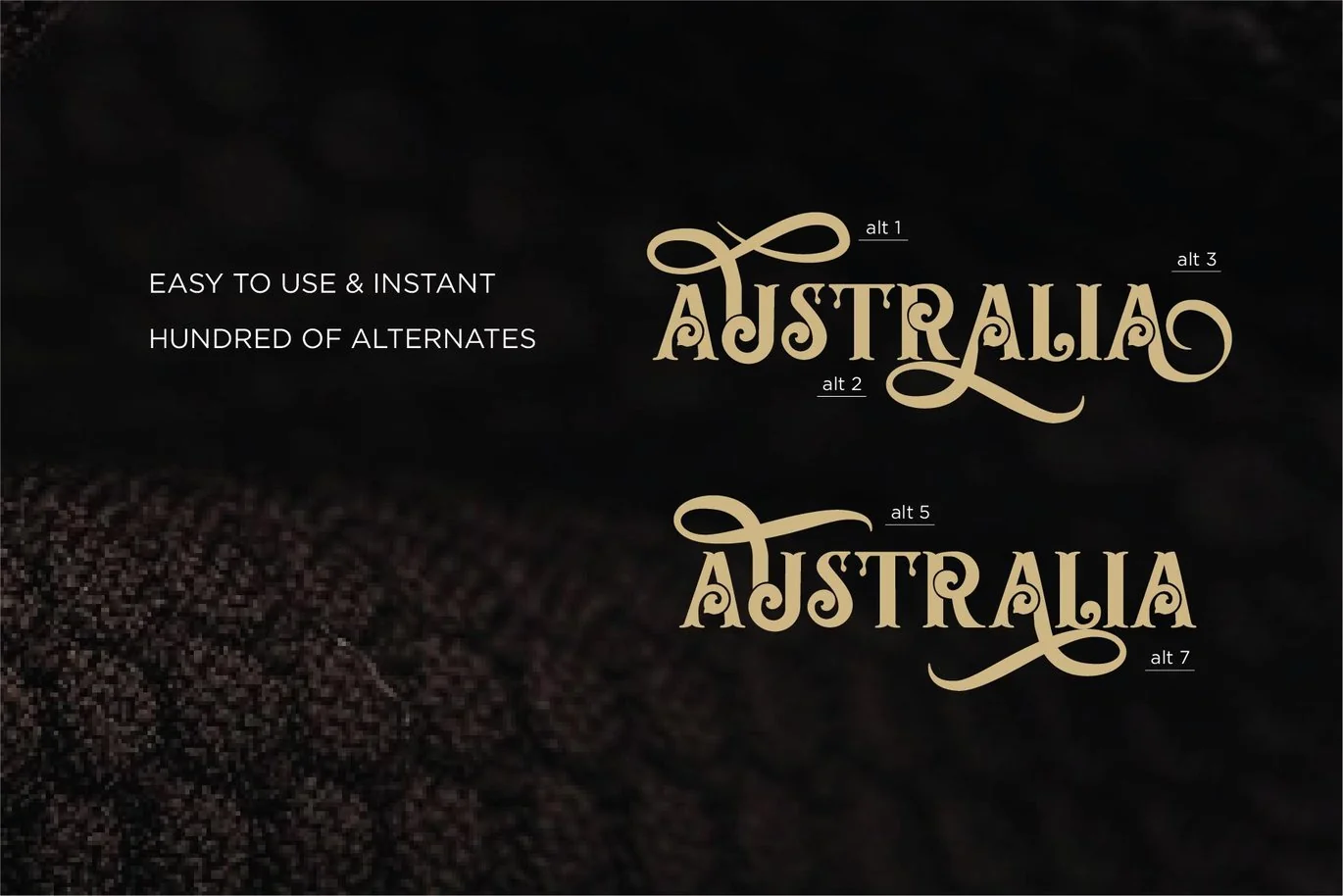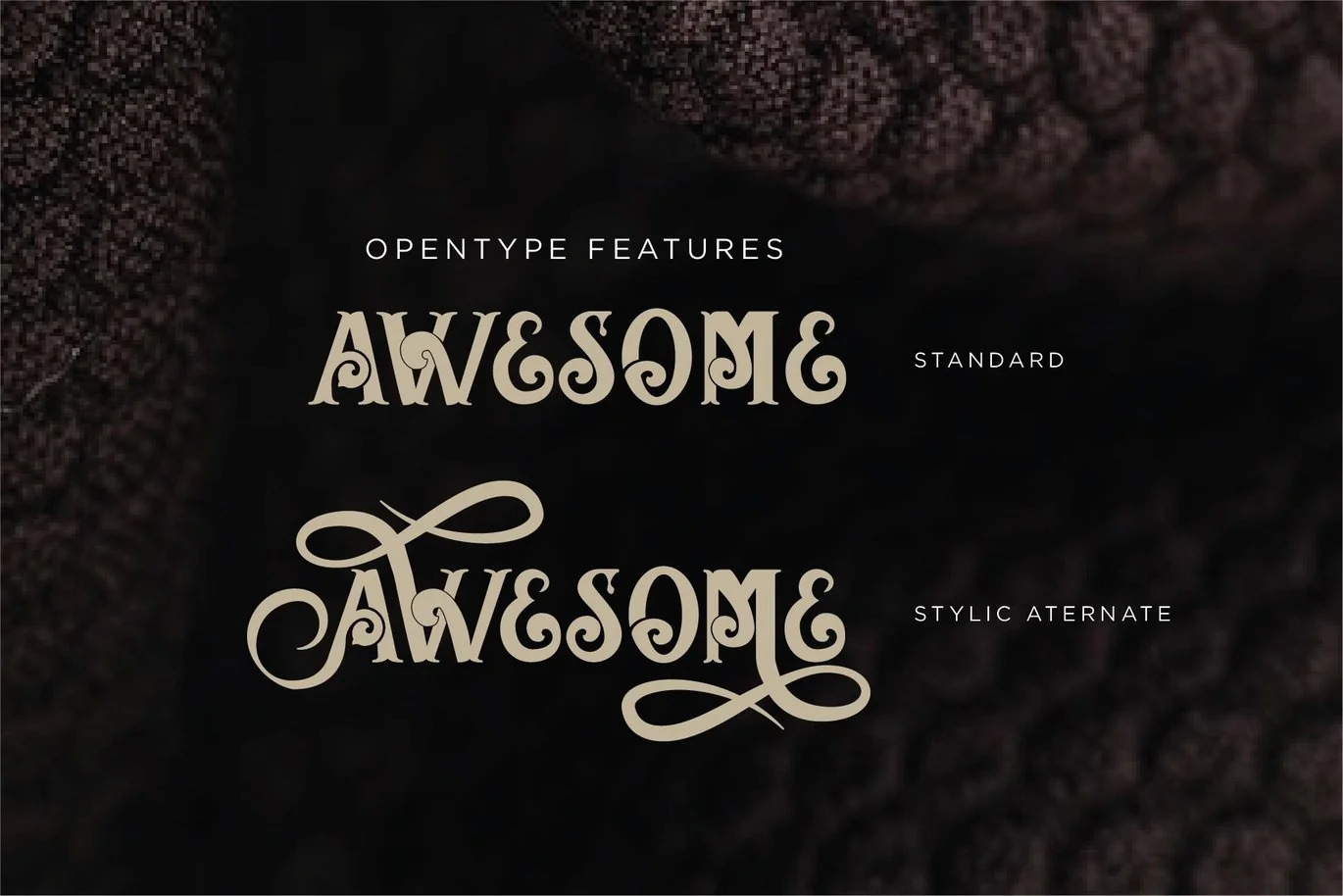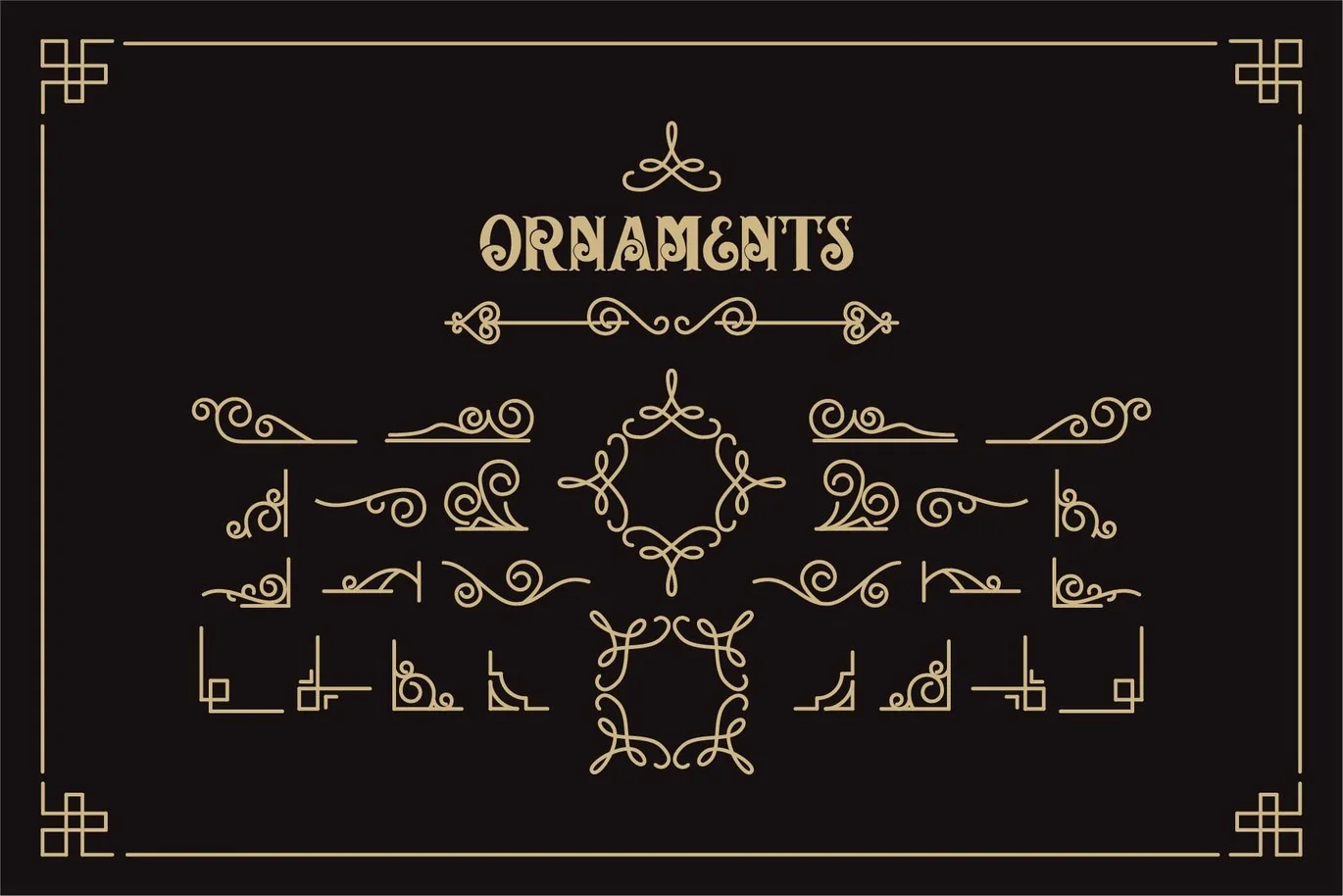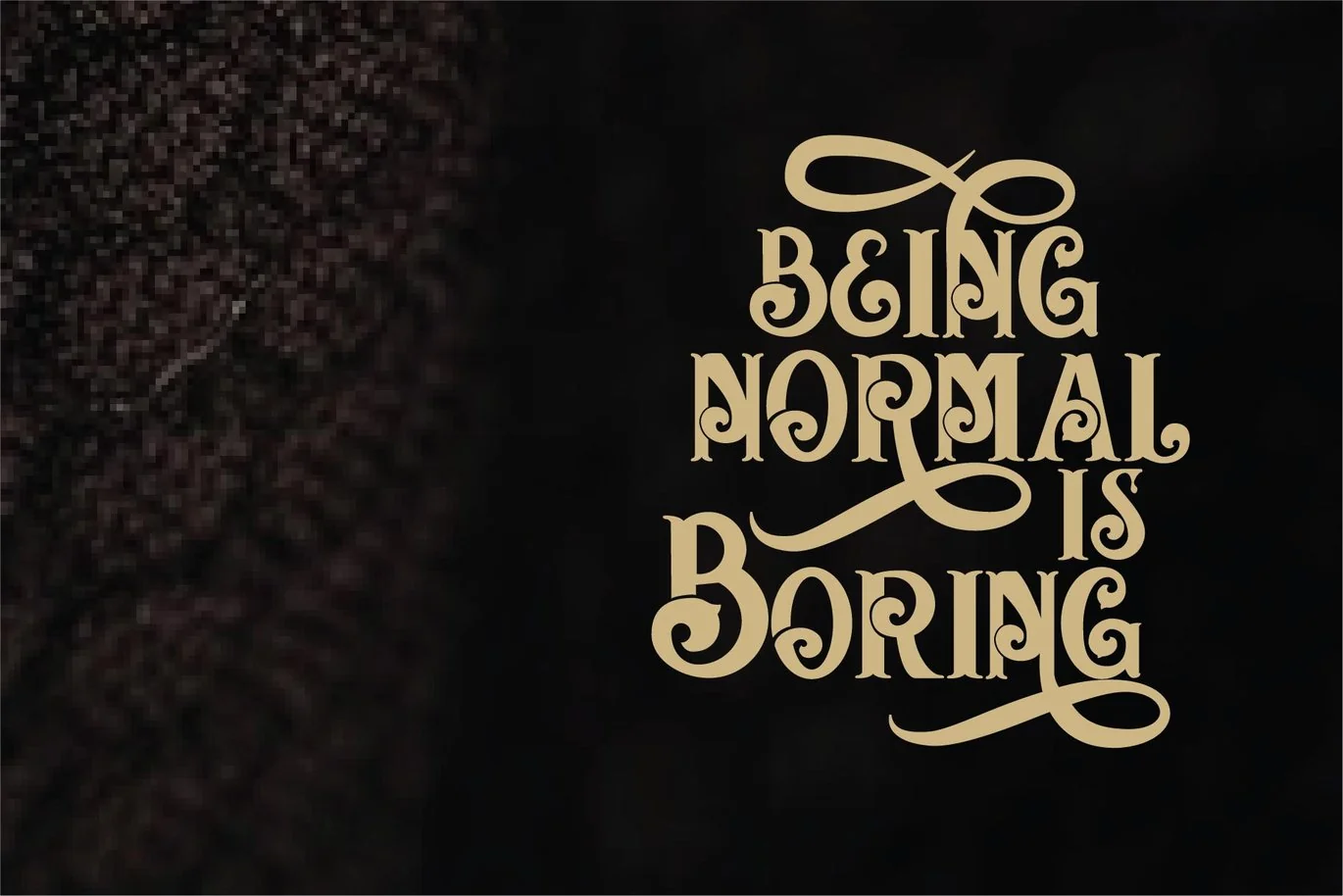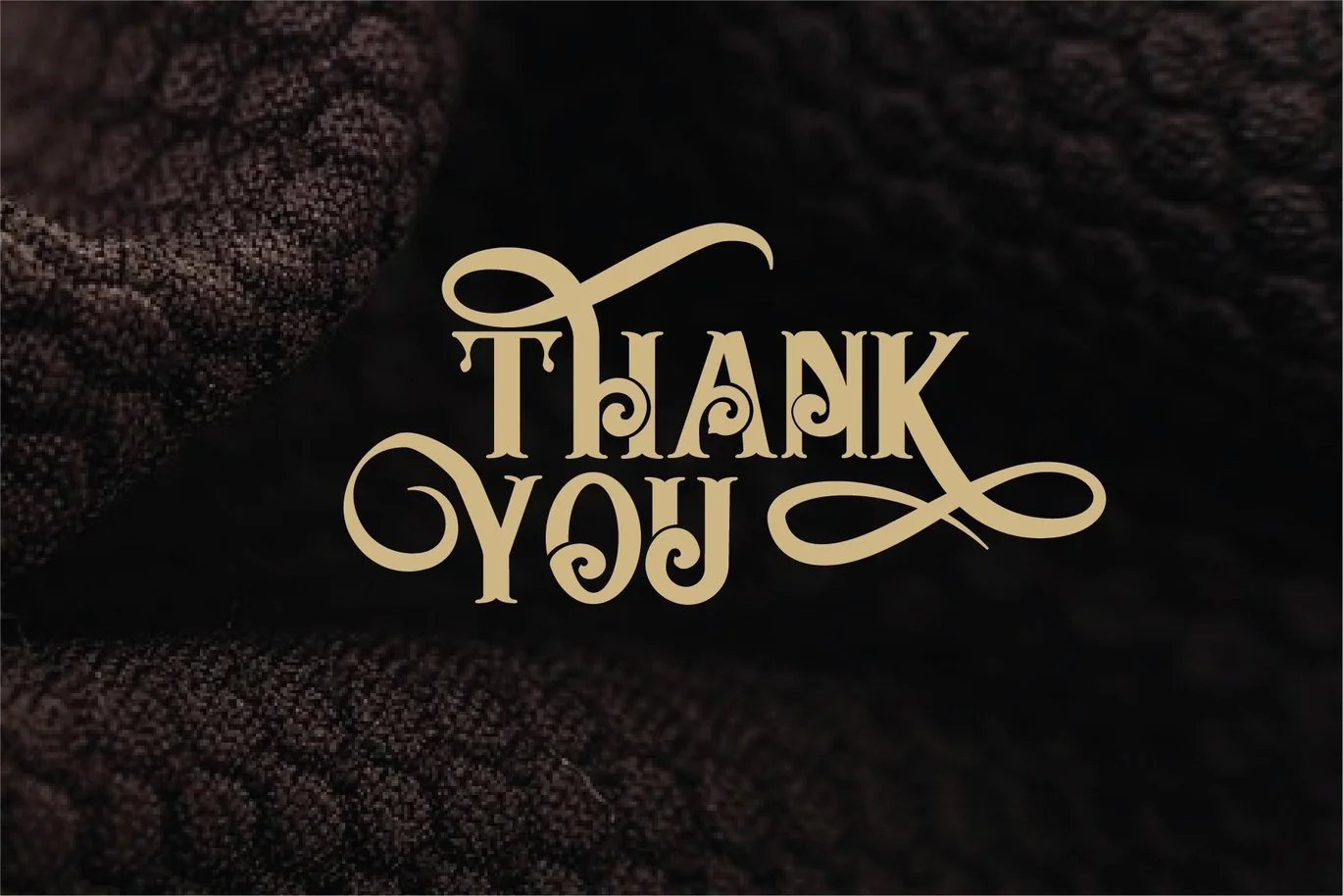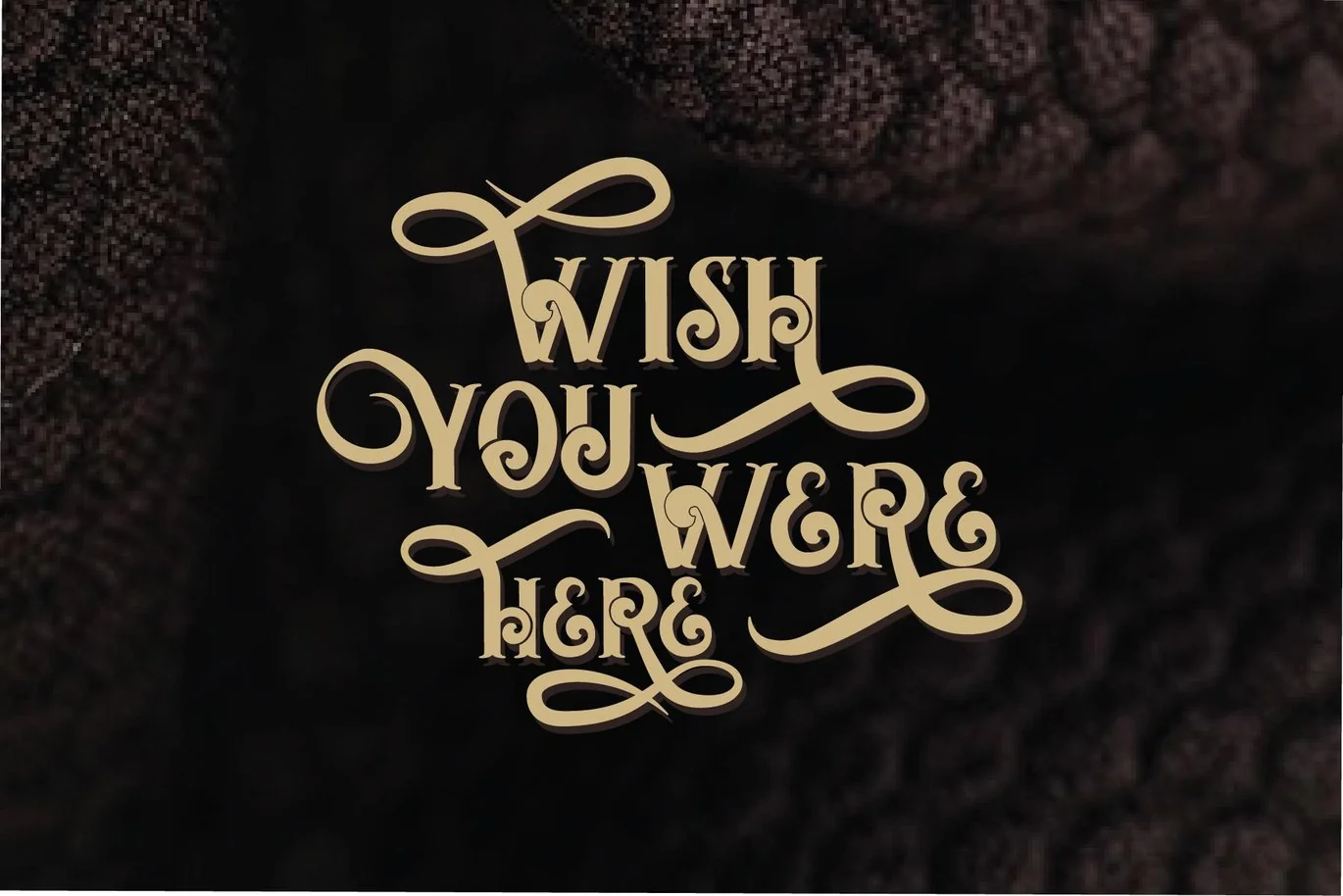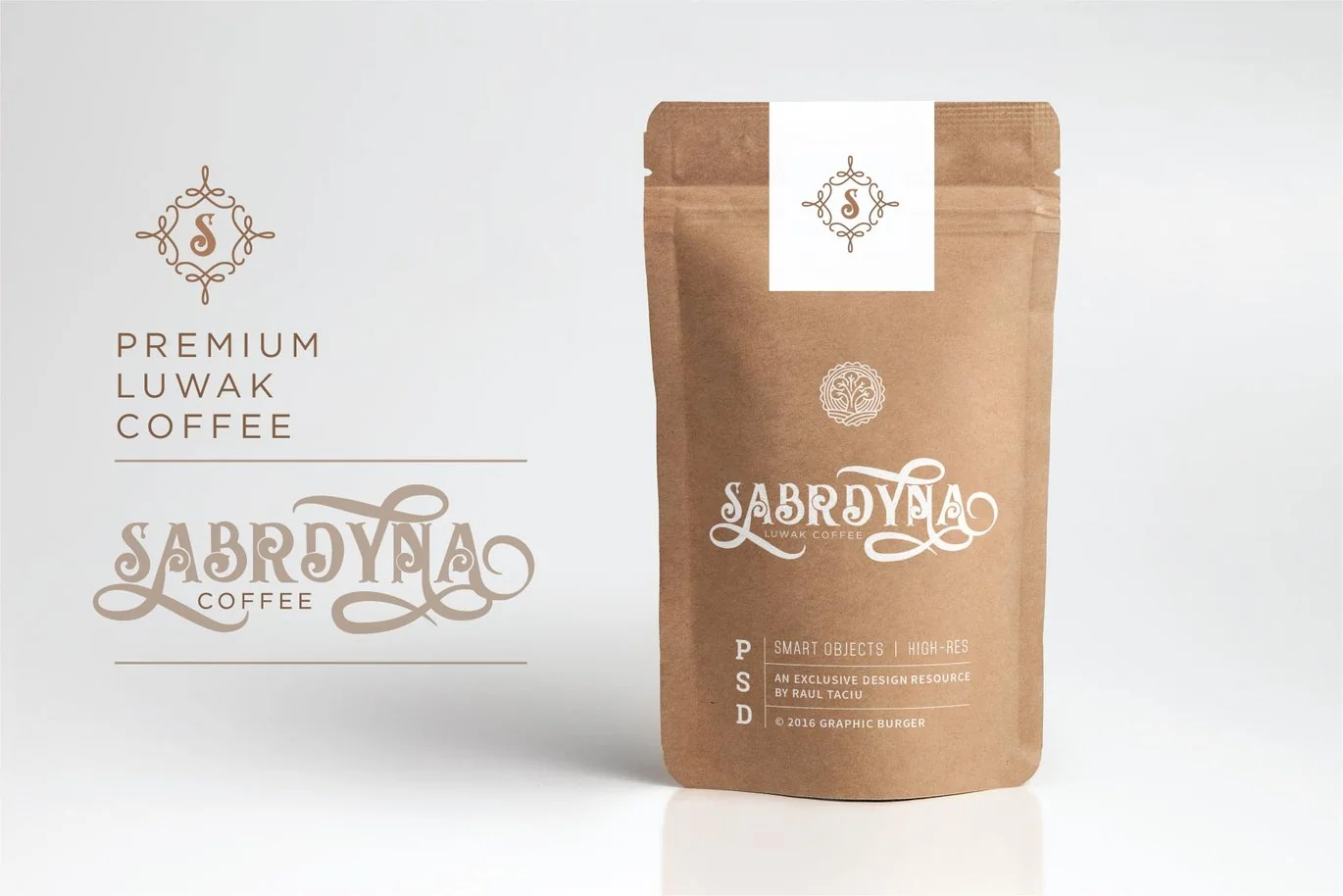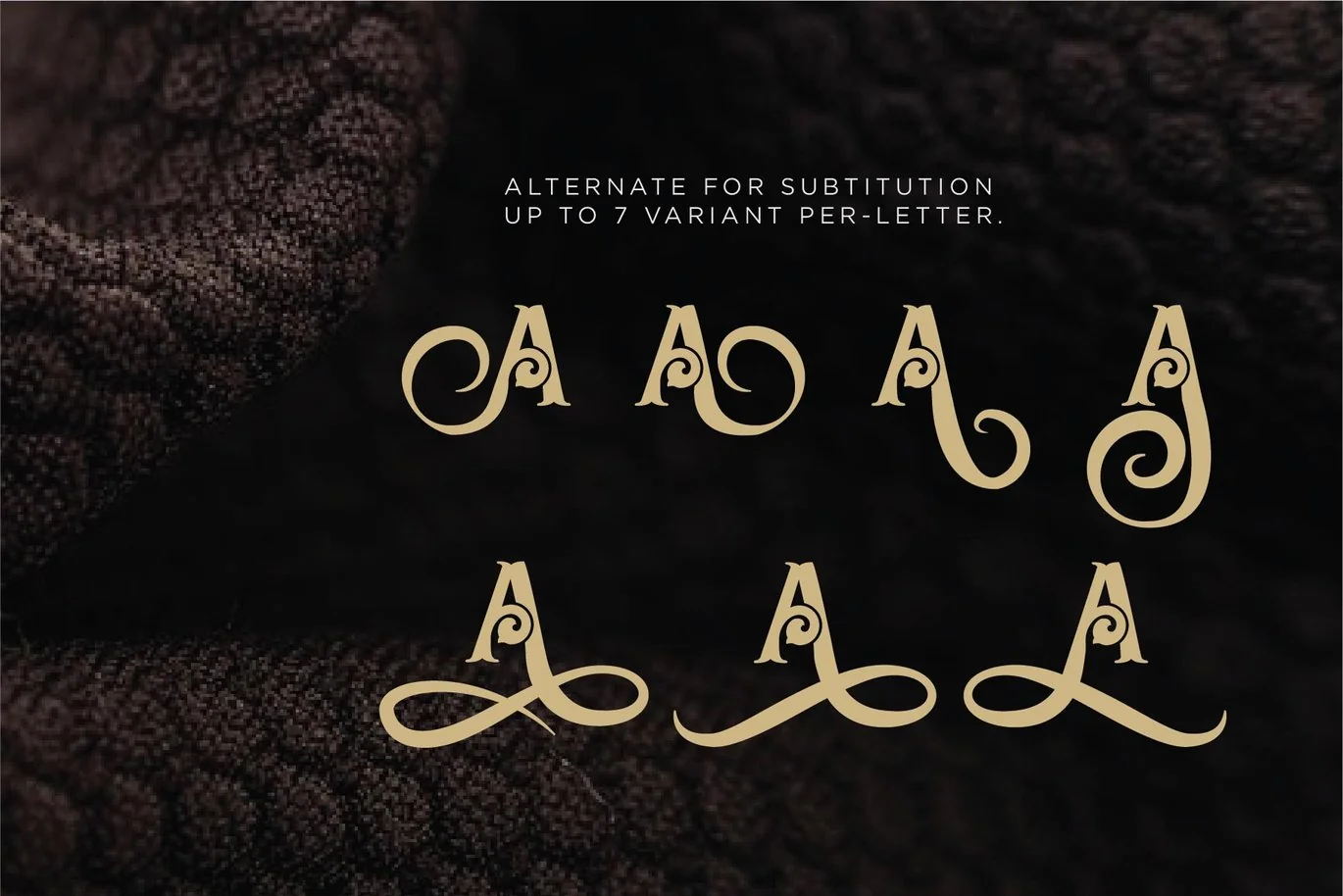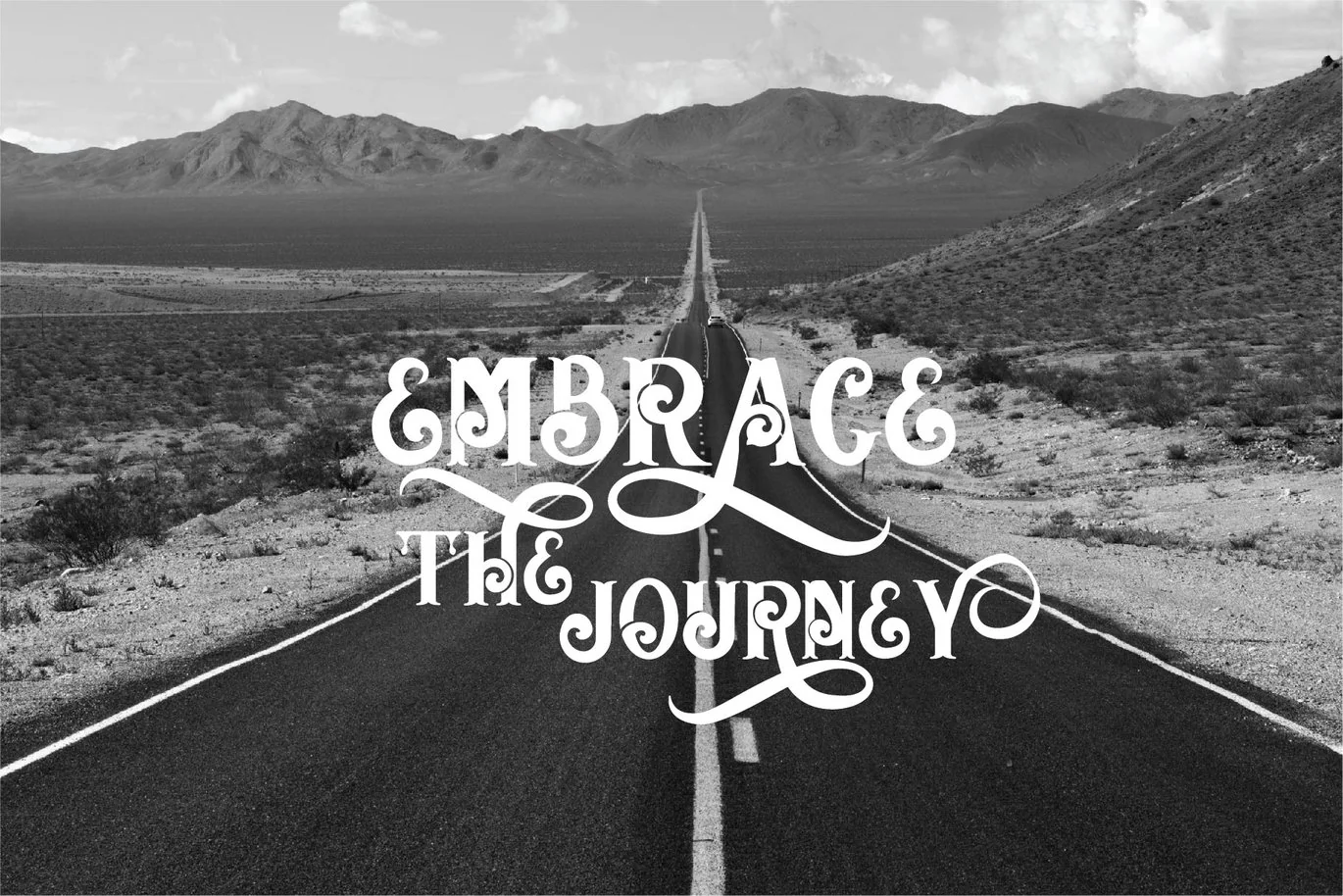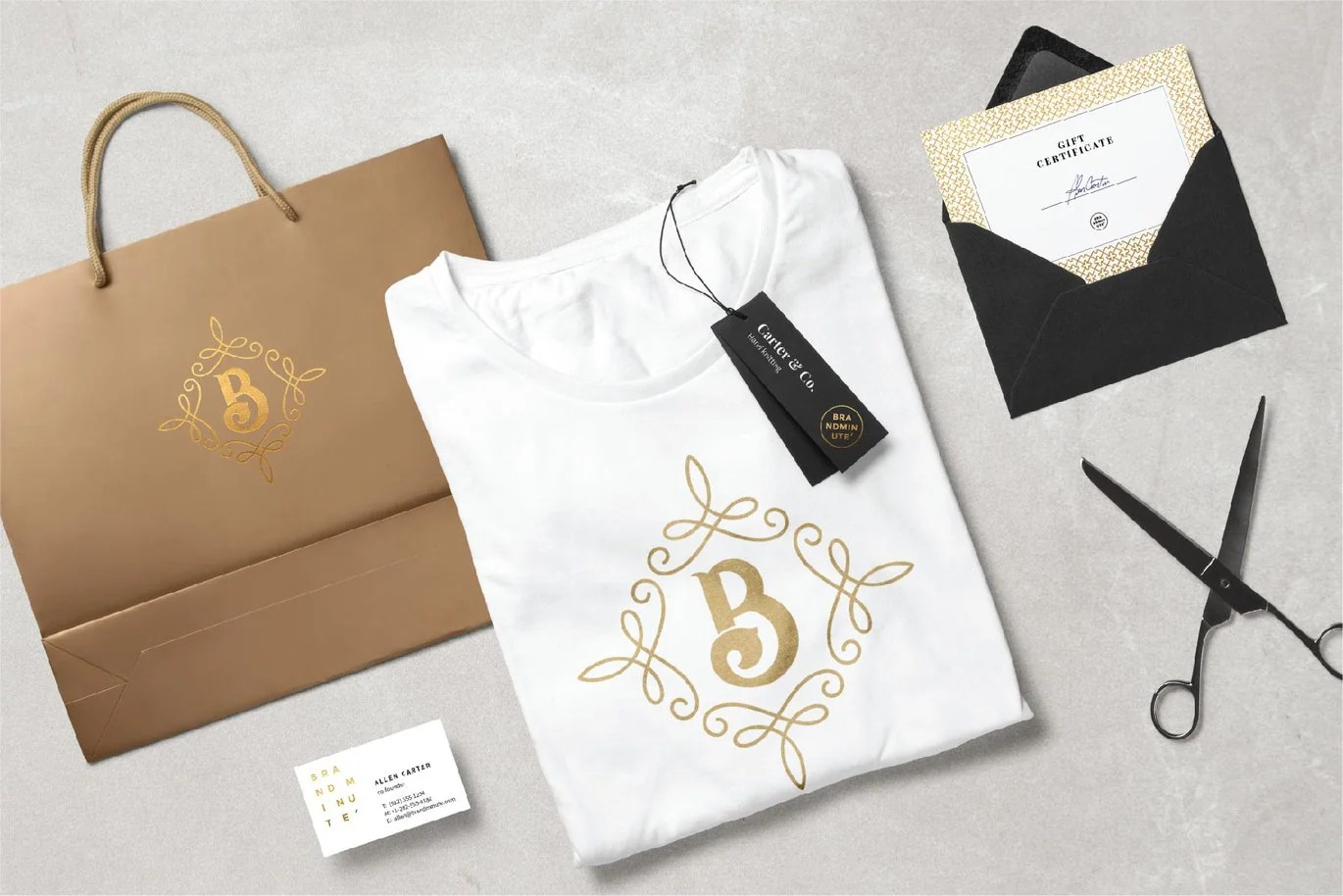
Sabrva – Vintage Font
Sabrva by Sigit Dwipa – Nirmana Visual,
Designed to work as perfect companions or simply as strong standalone typefaces.
Give your typography design with a touch of Classic style with Sabrva.
You can pick the alternate for subtitution up to 7 variant per-letter.
Extra Bonus : High Quality Ornament